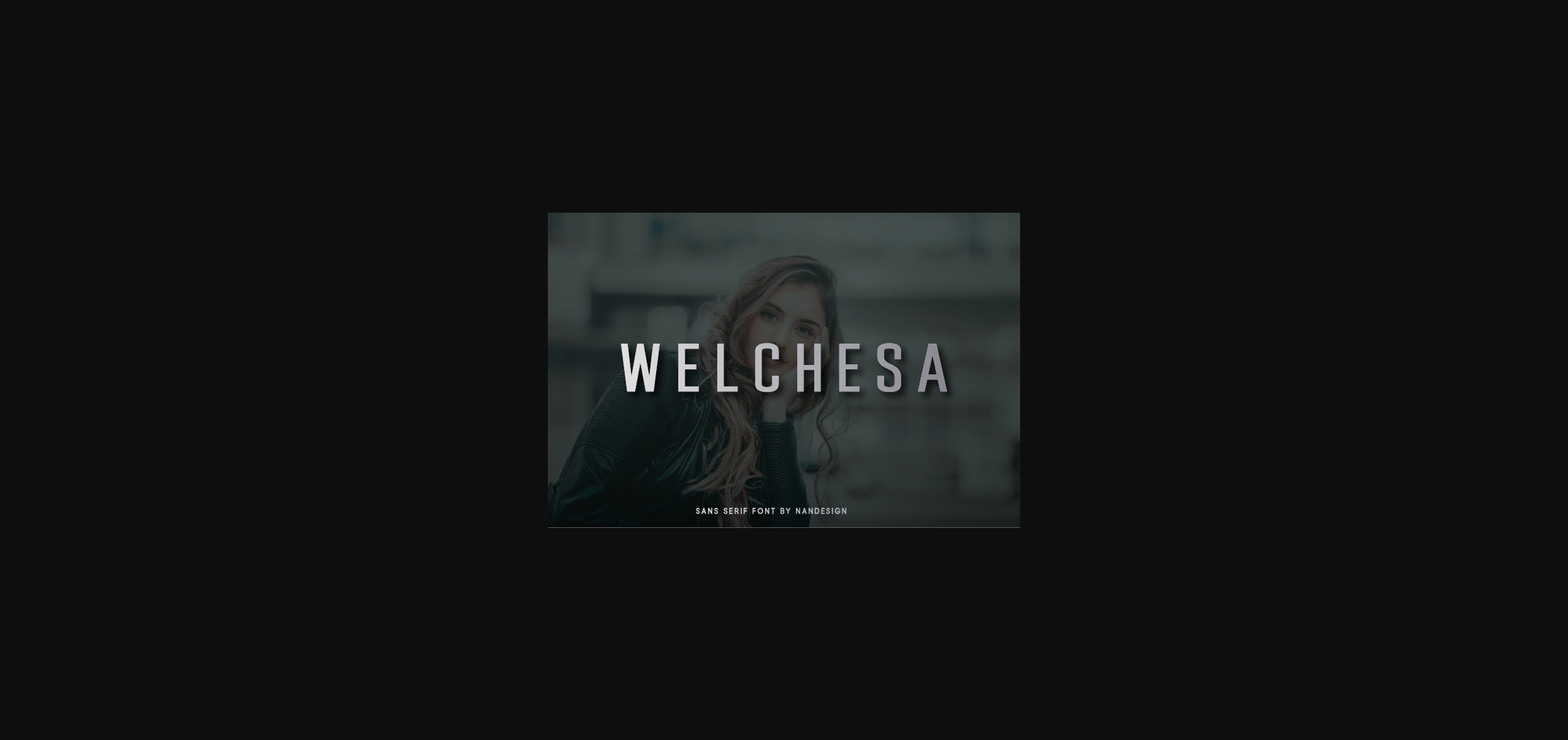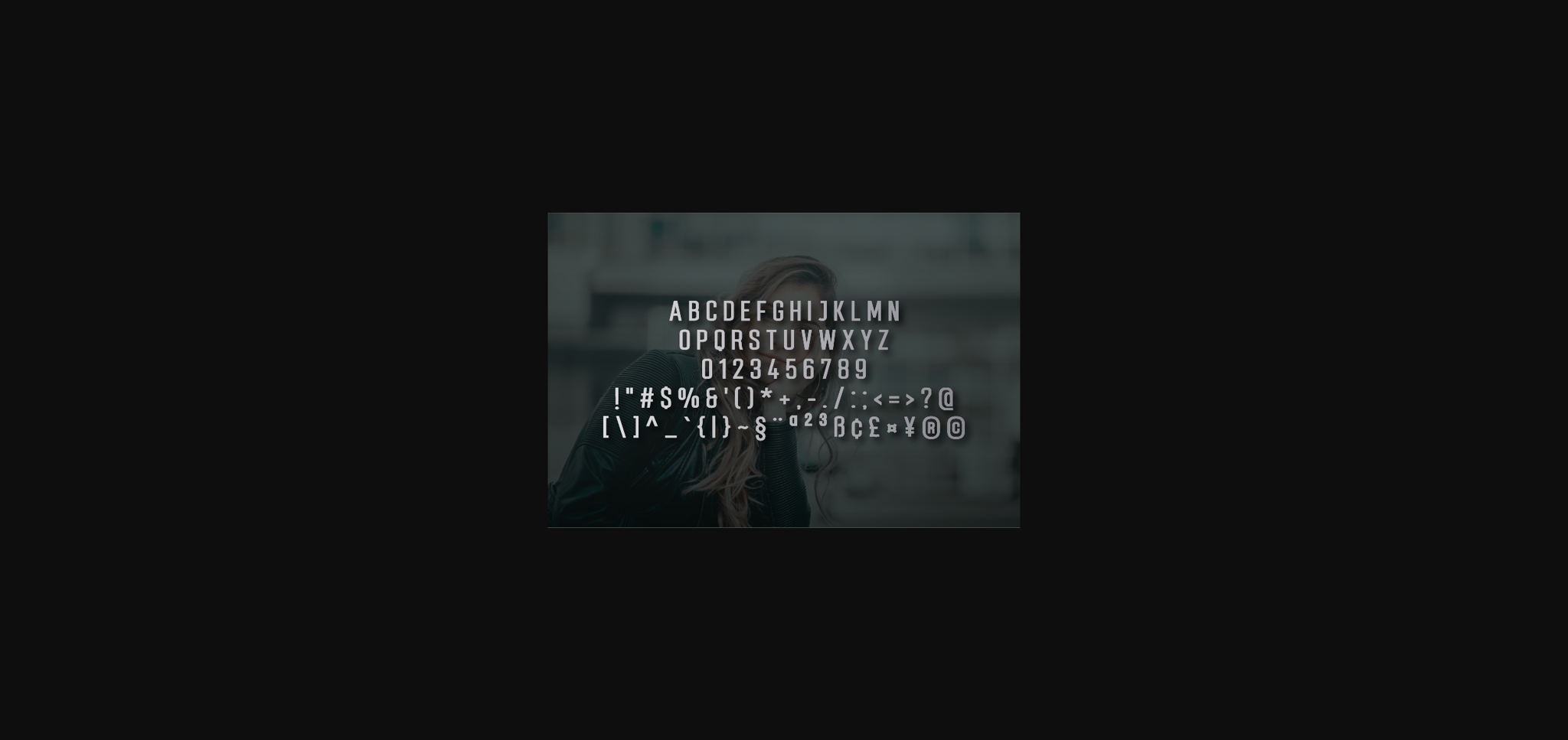
HomeSans Serif FontsWelchesa Font Sans Serif Fonts Welchesa Font FacebookXPinterestWhatsApp 1 of 4 ... Welchesa Font Poster 2... Welchesa Font Poster 3... Welchesa Font Poster 4... About Welchesa Font Welchesa is a bold, yet elegant sans serif font. It is the perfect match to a variety of design projects, both formal and non-formal. Use this true must have to achieve an exquisite, yet subtle look and maximum versatility. DOWNLOAD NOW People also explored Flower Font Wathelmina Font Quaff Font Tropical Freezer Font Hello Olive Font Glamourade Font Flamingos Font Roll off Font Southiya Font 399 0 TagsWelchesa Font Previous articleThe Maenstream FontNext articleRollane Font LEAVE A REPLY Cancel reply Comment: Please enter your comment! Name:* Please enter your name here Email:* You have entered an incorrect email address! Please enter your email address here Website: Save my name, email, and website in this browser for the next time I comment. Personal Use Free Goldsaber Personal Use Free Read more about this font Konexio Personal Use Free Read more about this font Concre Personal Use Free Read more about this font Farmhouse Christmas Personal Use Free Read more about this font BLOG Fonts That Capture the Spirit of New York City New York City is more than just a place—it’s an experience, a rhythm, a visual language... To increase your work productivity, choose the most readable fonts. Using Fonts in Digital Marketing: Tips to Strengthen Your Brand Identity How to Cut Any Font on Cricut: Convert a Font to SVG (Free)